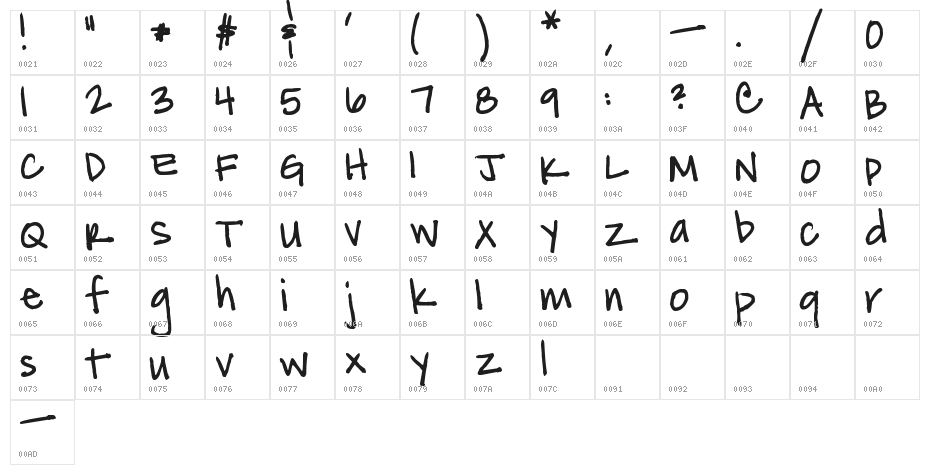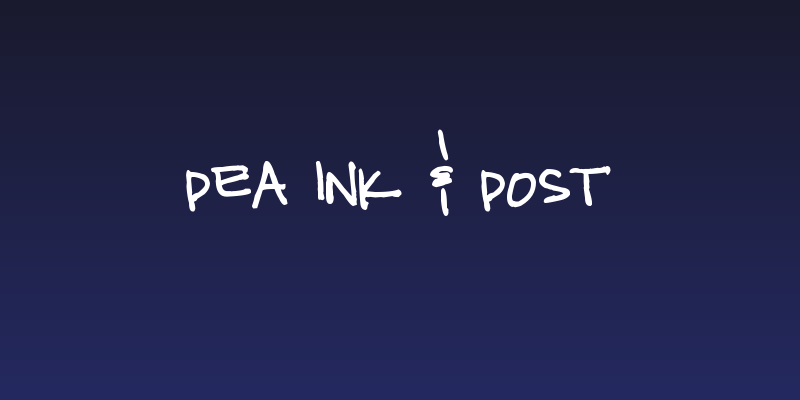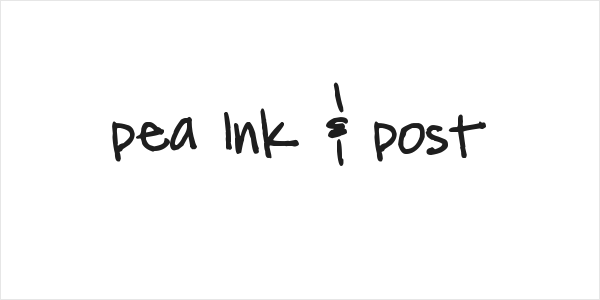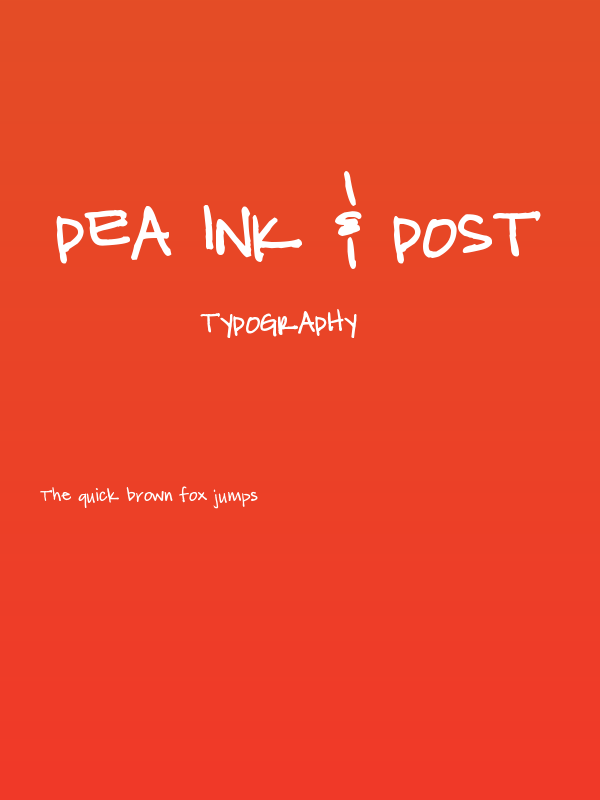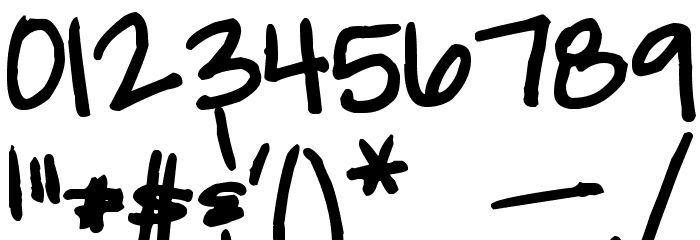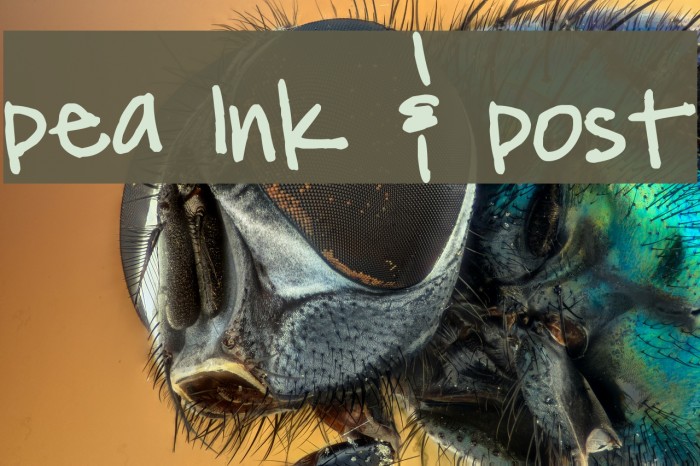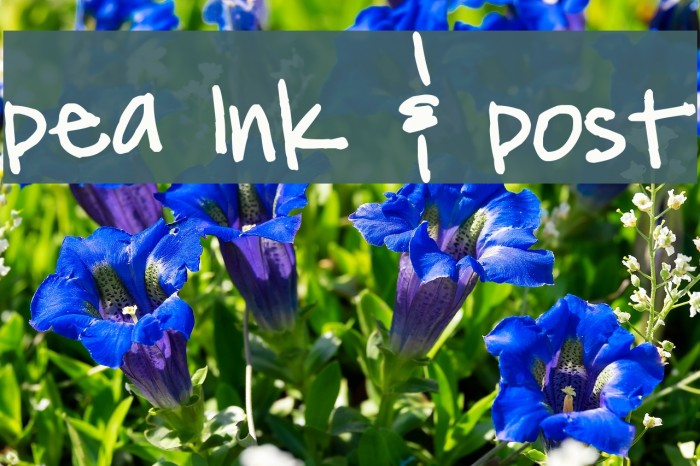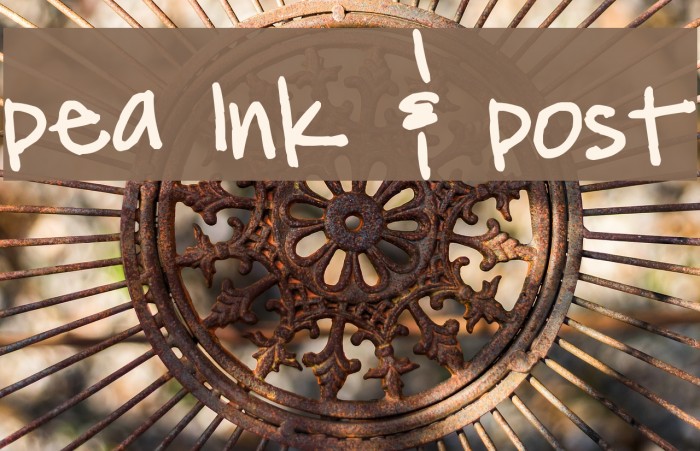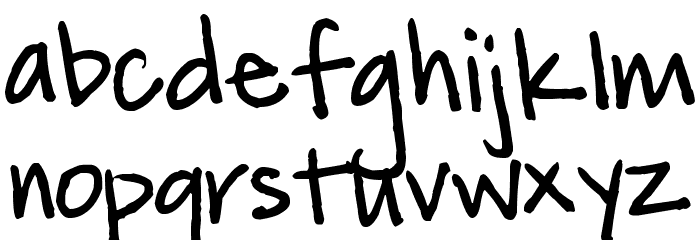
Pea Ink & Post Font
This font exudes a casual and playful handwritten style, characterized by its uneven strokes and organic flow. The letters are slightly slanted, giving a dynamic and lively appearance. The uppercase and lowercase letters maintain a consistent style, with rounded edges and a slightly irregular baseline, enhancing its informal charm. The numerals and special characters follow the same playful aesthetic, making the font versatile for various creative projects. Its handwritten nature suggests a personal touch, ideal for projects that require a friendly and approachable feel.
| Overall Style | Casual, Playful |
| Use Case | Headlines, Informal text, Creative projects |
| Proposed Projects | Ideal for greeting cards, personal blogs, children's books, and informal branding. |